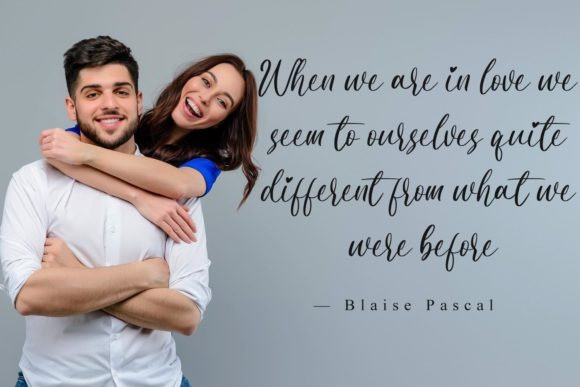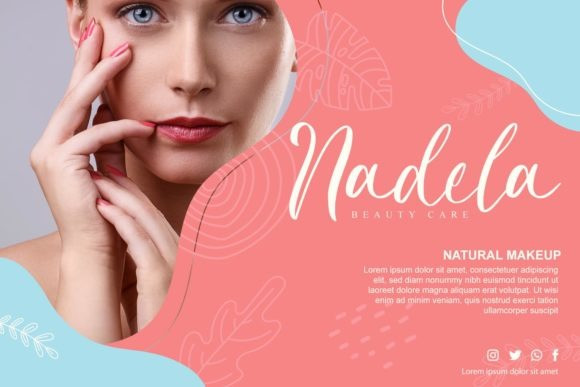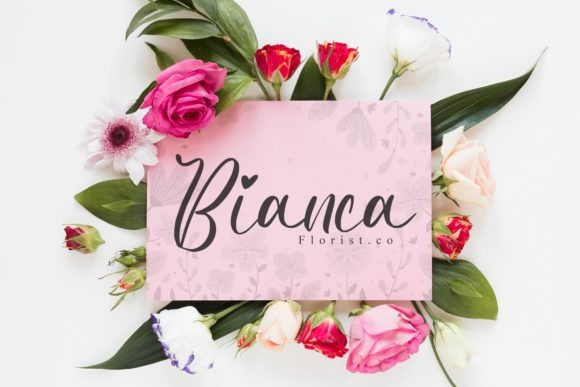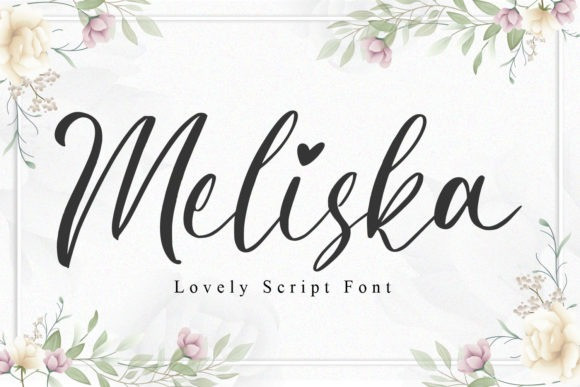
Meliska Font
Meliska Script Font
This font is a cute script with natural handwritten look. It’s designed and shared by NissaStudio. Suitable for Logo, greeting cards, quotes, posters, branding, name card, stationary, design title, blog header, art quote, typography, art, modern envelope lettering or book design, happening style like handdrawn design or watercolor design theme, craft design, any DIY project, book title, or any purpose to make your art/design project look pretty and trendy.